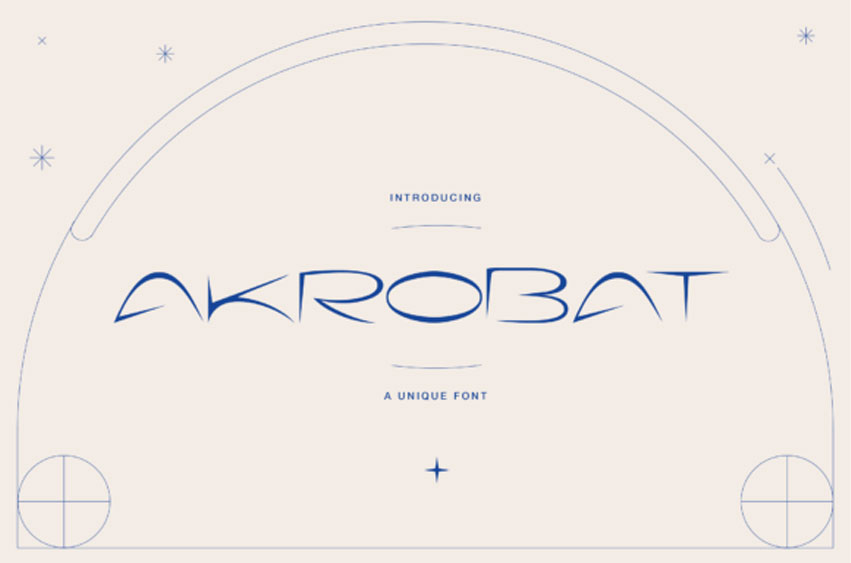
Akrobat Display Font
Akrobat Display Font is a thin and elegant typeface. Thanks to its beautiful curves, your designs will draw attention delicately and elegantly.
You can use Akrobat to give your project a unique style.
It’s perfect for branding, headlines, wedding invitations, social media, packaging, fashion, editorials, magazines, and much more. Add elegance and personality to your design projects with Akrobat today!
Akrobat Display Font Preview